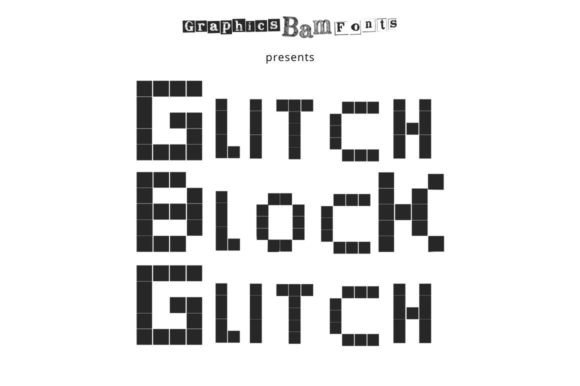
Dive into the world of digital nostalgia with Glitch Block Font – the ultimate display font family that brings a retro vibe to your designs. Its monospaced structure, reminiscent of old-school typewriters, adds a touch of vintage charm to any project.
With Glitch Block, you'll discover a font that defies convention. Its subtle glitches create a captivating visual effect, instantly capturing the attention of your audience. Whether you're designing posters, flyers, book covers, or website graphics, this font will make your words stand out.
Experience the versatility of Glitch Block as it seamlessly blends with a wide range of design styles. Its unique character shines through in print, digital, and even motion graphics, making it a must-have for any creative professional. Unleash your imagination and explore endless possibilities with this remarkable font.
If you yearn for a font that evokes a sense of nostalgia and individuality, Glitch Block is your perfect match. Its unique aesthetic will add a distinctive touch to your projects, leaving a lasting impression on your audience.